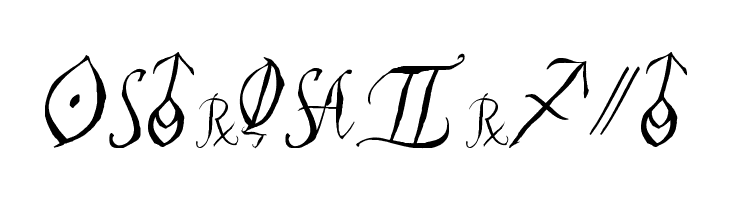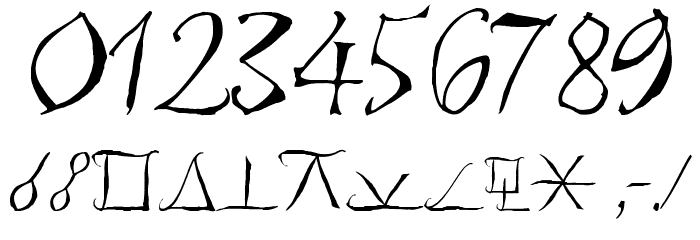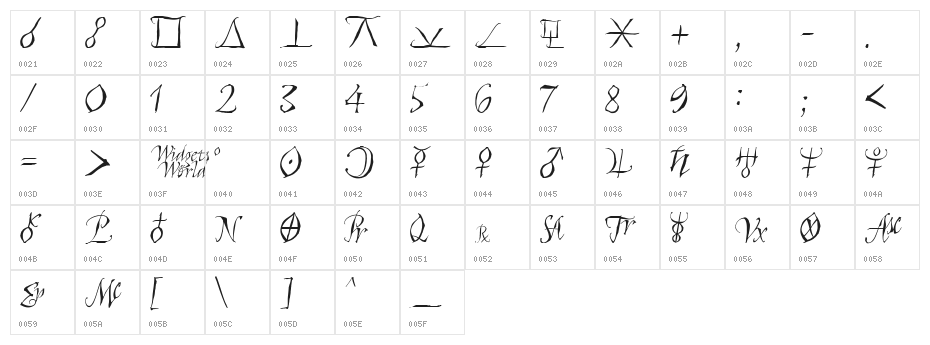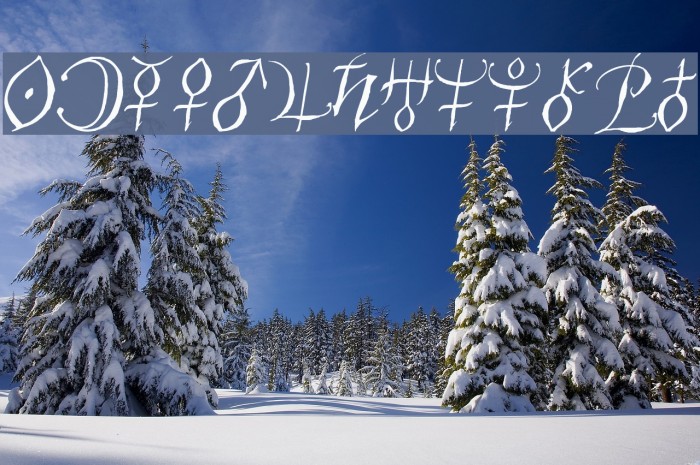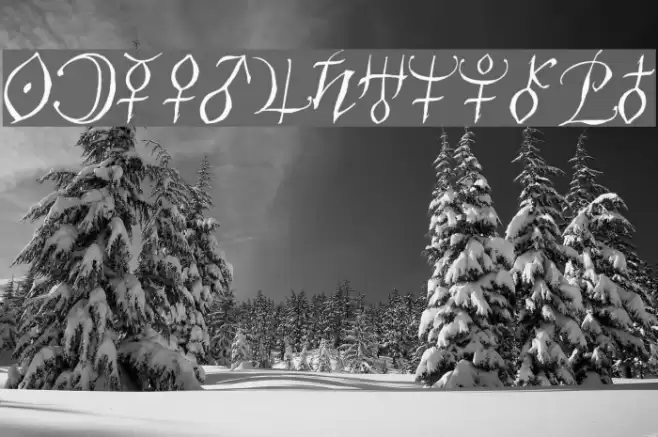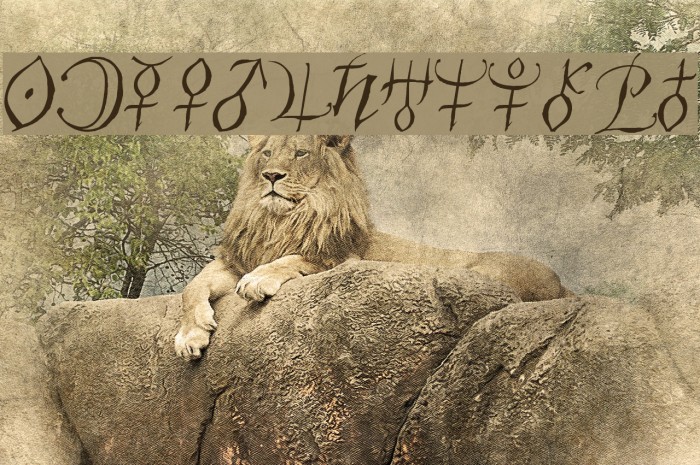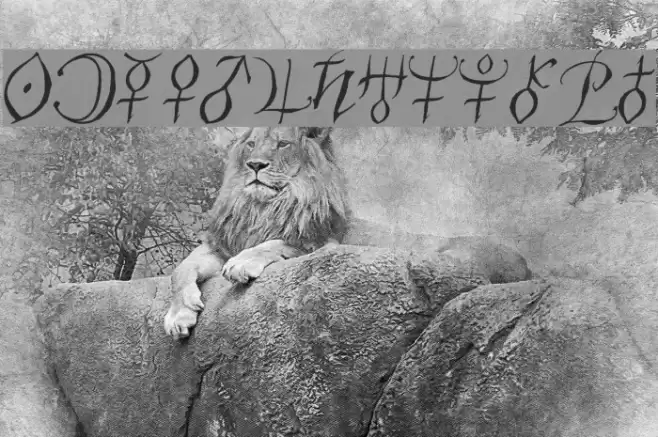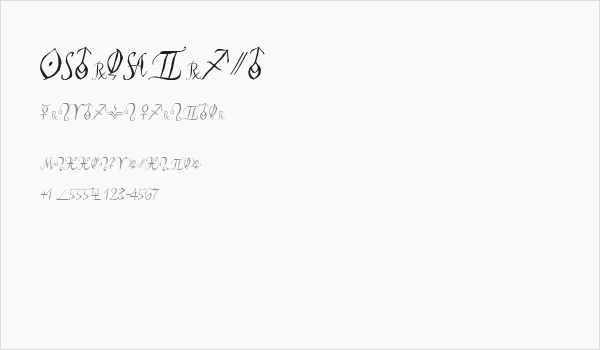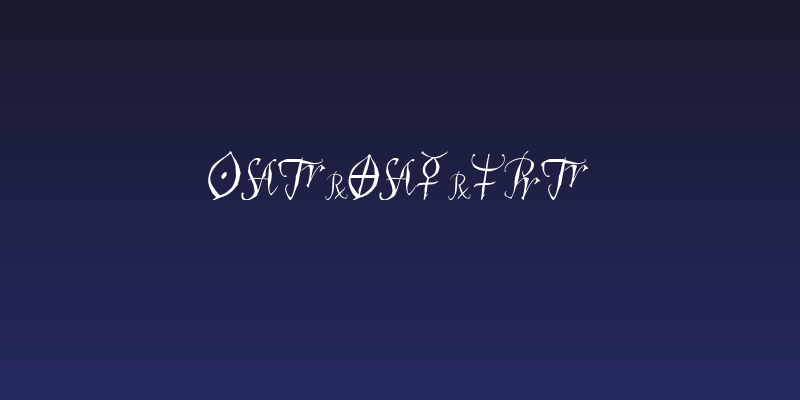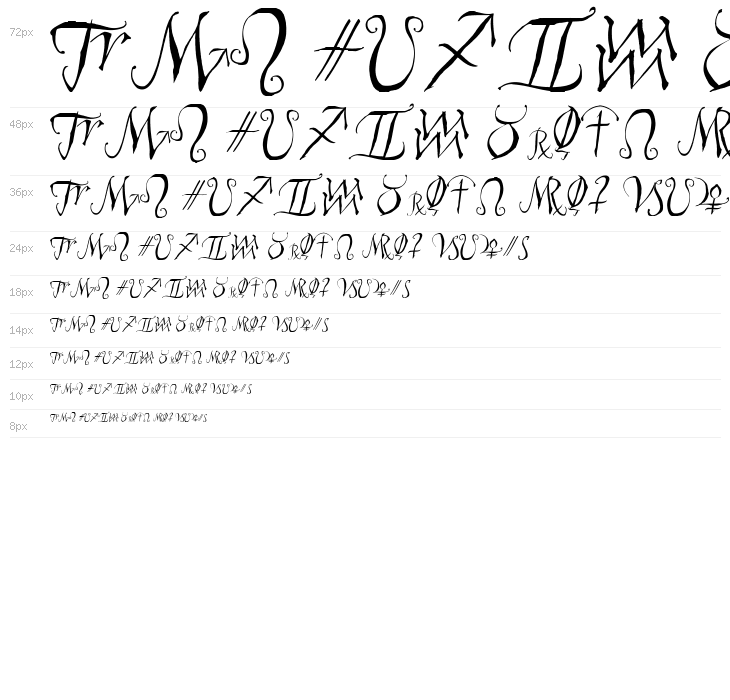
AstroScript Font
AstroScript Description
This font features a unique and mystical design, reminiscent of ancient symbols and celestial motifs. Each character is crafted with intricate curves and lines, giving it an enigmatic and magical appearance. The uppercase letters are bold and striking, while the lowercase letters maintain a whimsical and flowing style. Numbers are designed with a similar flair, ensuring consistency throughout the typeface. Special characters are creatively integrated, adding to the font's overall mystical theme. The font's artistic style makes it suitable for projects that require a touch of fantasy or otherworldly charm.
| Overall Style | Mystical, Enigmatic, Fantasy |
| Proposed Projects | Ideal for fantasy book covers, astrology-themed designs, mystical event invitations, and magical branding. |